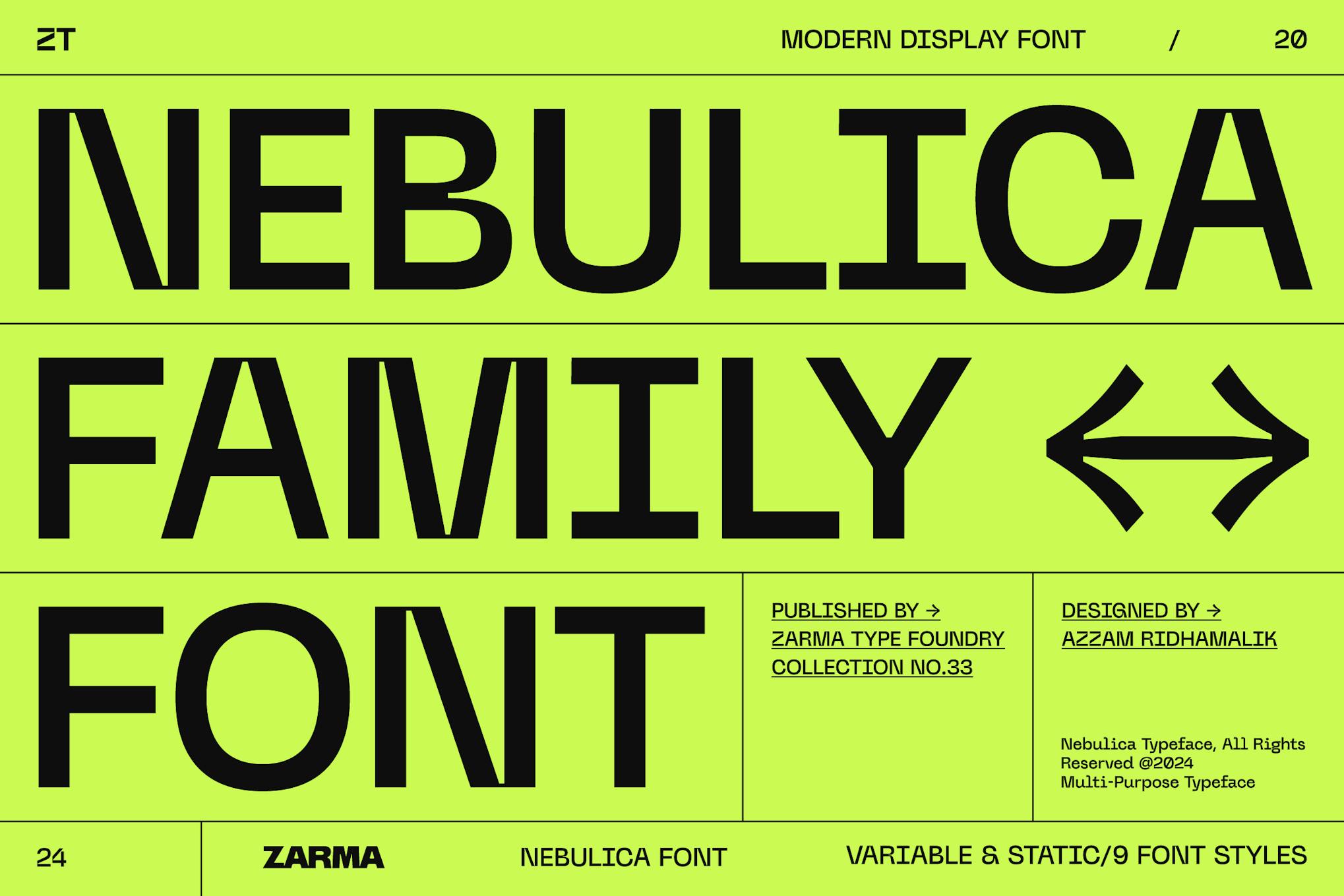
Nebulica - Modern Sans Font
Perfect for tech branding, user interfaces, web design, corporate identities, and digital marketing materials.
The Nebulica - Modern Sans Font excites designers with its sleek, clean lines and contemporary geometric style that brings a futuristic yet approachable vibe to any project.
The Nebulica - Modern Sans Font Free Download is a versatile typeface designed to provide clarity, modernity, and professionalism. Its balanced shapes and smooth curves make it ideal for digital and print media where legibility and style are paramount. Whether you’re crafting website content, branding, or UI design, Nebulica ensures a polished and forward-thinking appearance.
One of the standout features of Nebulica - Modern Sans Font is its adaptability across different platforms and sizes. From bold headlines to readable body text, its variety of weights and styles helps maintain consistent brand messaging and visual harmony.
In branding, Nebulica conveys innovation, clarity, and sophistication. It pairs perfectly with minimalist designs, vibrant accents, and clean layouts, helping brands present a modern and confident identity.
For digital projects, this font enhances website headers, app interfaces, social media visuals, and promotional campaigns with its sharp and sleek aesthetic. Its futuristic style ensures your digital presence is modern and memorable.